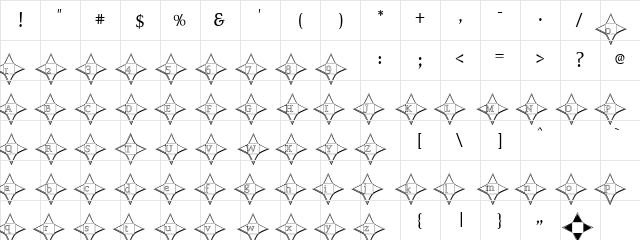
NinjaStarOutline Regular
Design Context for NinjaStarOutline Typeface
NinjaStarOutline is built around its visual character rather than neutral utility — its distinctive forms are designed to make an impression at display sizes.
Font Pairing: Pair with a clean neutral sans-serif for body copy to let NinjaStarOutline's character lead without overwhelming the composition.
Pro Tip: Treat NinjaStarOutline as the centrepiece of your typographic hierarchy. One strong heading set in a decorative face can carry an entire layout.